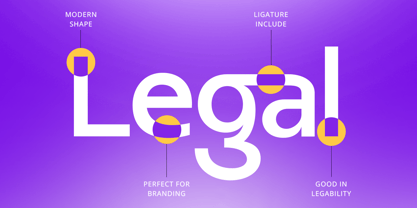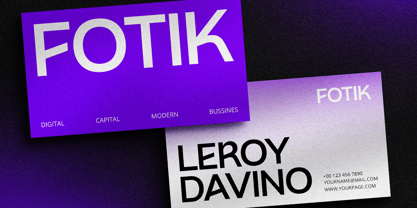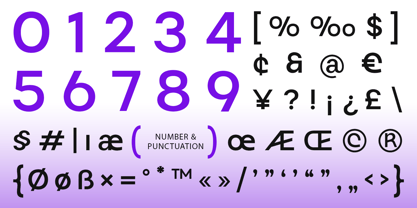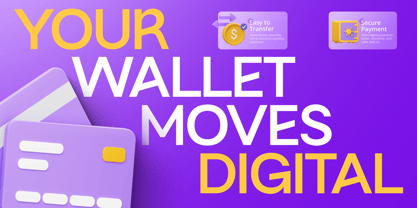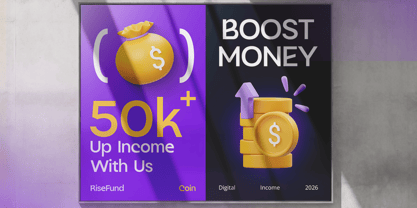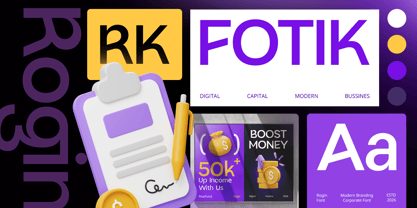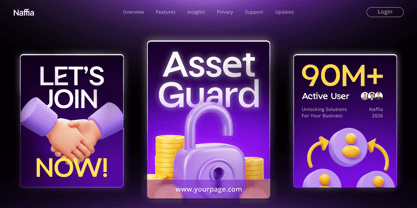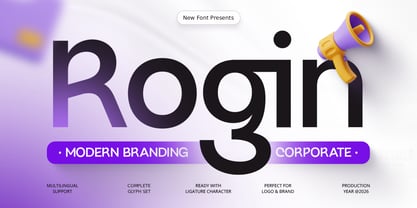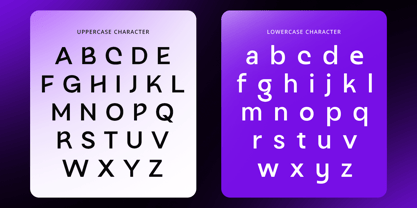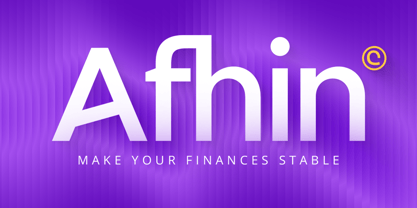
Rogin
La famille de polices Rogin a été conçue par Kusnidah Marpuah et publiée par Dareco Studio. Rogin contient 1 styles. En savoir plus sur cette famille
Rogin – Modern Branding Corporate Font is a modern corporate font created for professional branding, business identity, logo design, and contemporary visual communication. Inspired by clean corporate aesthetics and modern branding systems, Rogin is designed to help businesses build a strong, trustworthy, and recognizable brand identity.
Featuring refined letterforms, balanced proportions, and a clean contemporary structure, Rogin delivers a professional appearance that works seamlessly across logos, corporate branding, marketing materials, and digital media. The font combines readability with modern elegance, making it an excellent choice for businesses seeking a polished and consistent visual identity.
Whether you're developing a corporate brand, launching a startup, designing a business logo, or creating marketing assets, Rogin provides the versatility and professionalism needed to strengthen your brand across every touchpoint.
Rogin is Perfect For
• Corporate branding and business identity systems
• Professional logo and logotype design
• Startup and enterprise branding
• Company profiles and annual reports
• Business presentations and marketing materials
• Consulting, finance, and technology companies
• Website headers and digital branding
• Modern corporate visual communication
Whether you're creating a professional logo, building a corporate identity, developing a business brand, or designing modern marketing materials, Rogin delivers the clarity, credibility, and contemporary style of a modern corporate font built for successful branding.